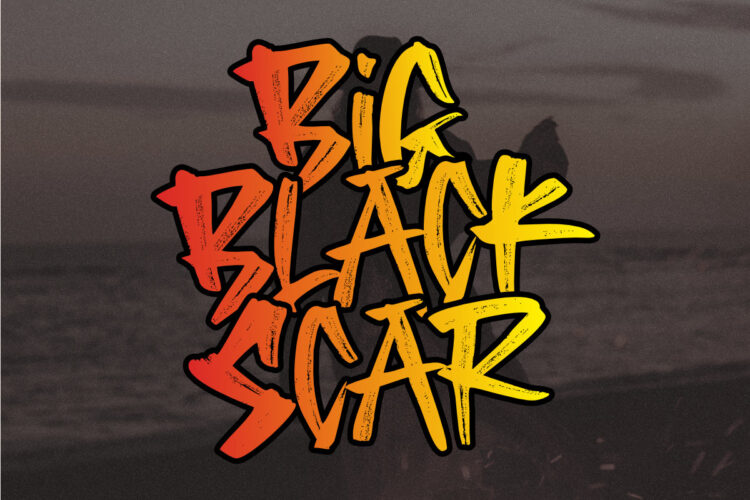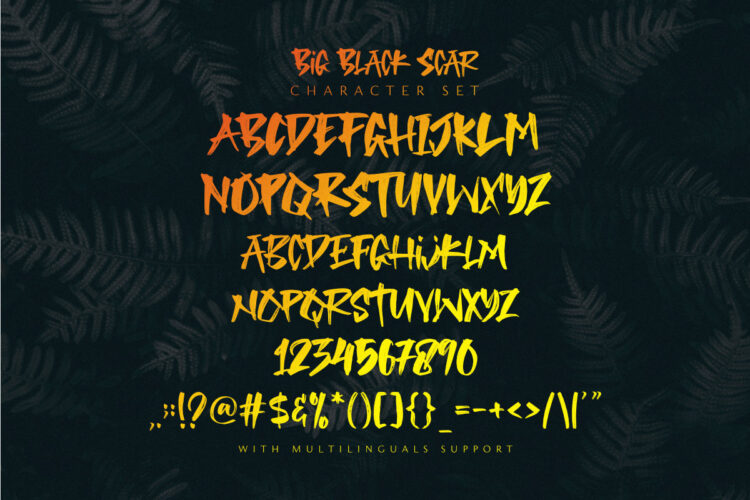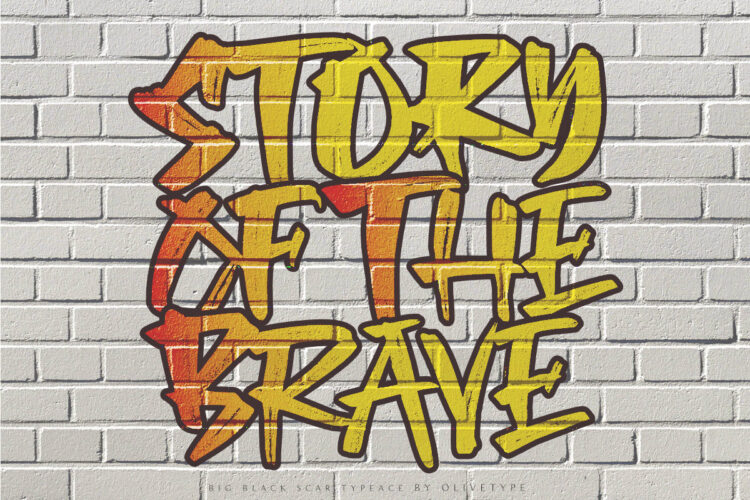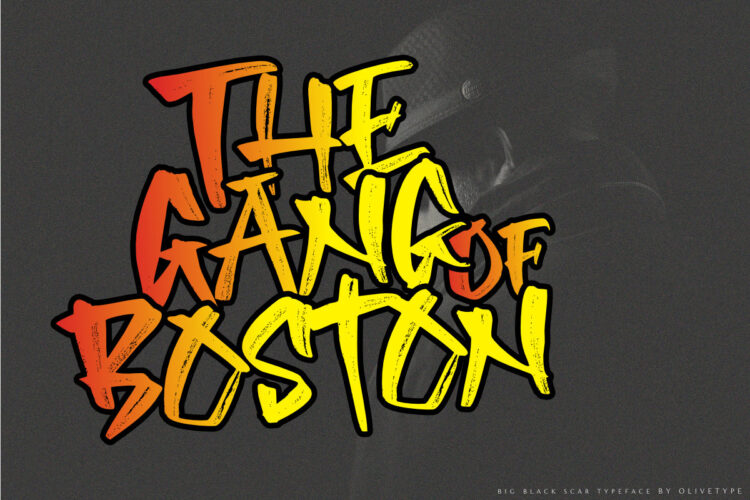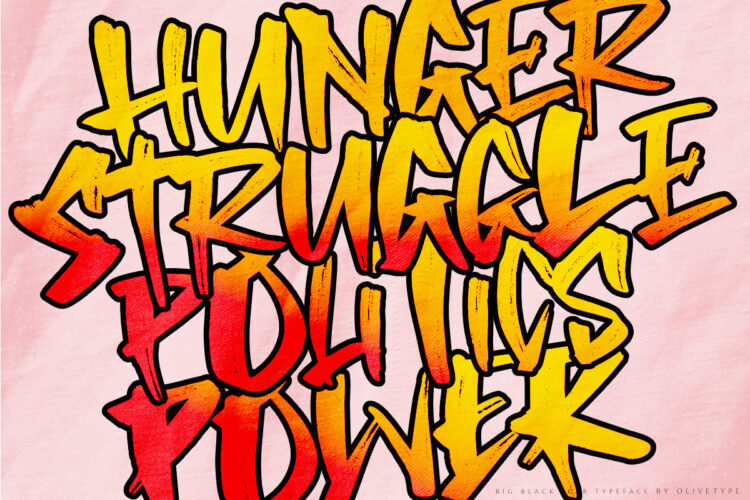
Black Big Scar is a cool hand brush font with a graffiti style. This kind of font is suitable for posters, apparel, product branding, etc. This font is also supporting multi-Languages, which include: Afrikaans Albanian Catalan Danish Dutch English Estonian Finnish French German Italian Norwegian Portuguese Spanish Swedish Zulu.
- Basic Latin A-Z & a-z.
- Numbers, symbols, and punctuations.